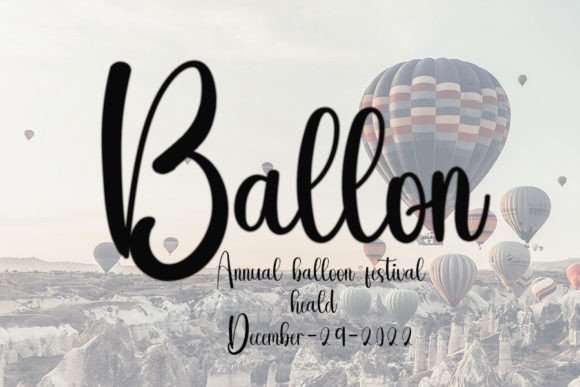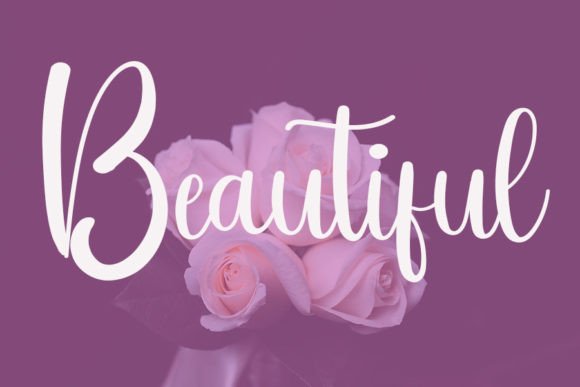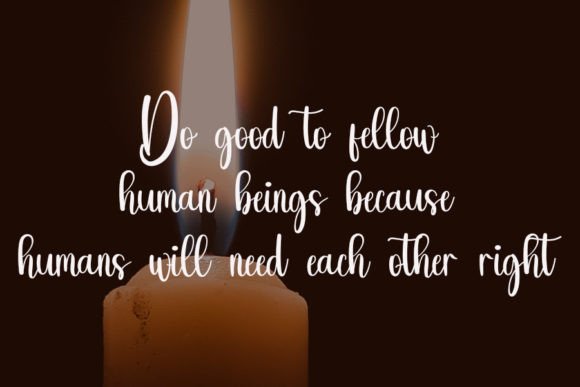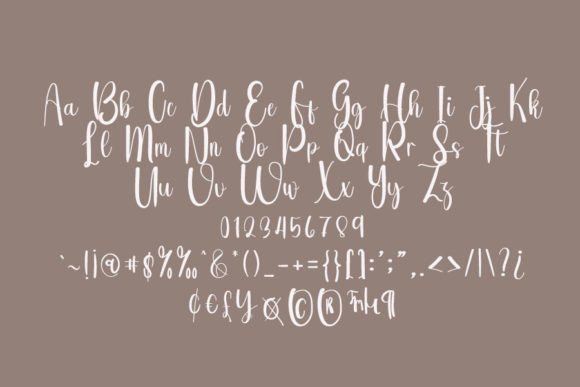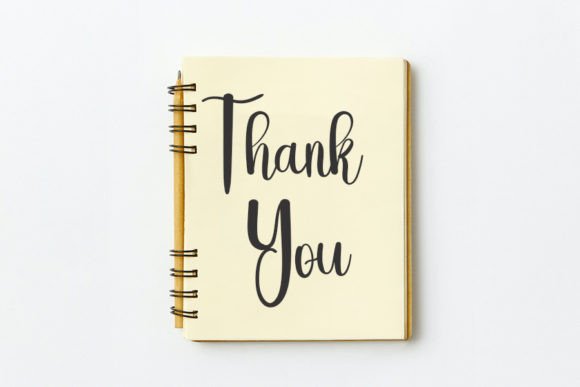
Introduction to Planners Font
As a designer, have you ever found yourself staring at a blank canvas, struggling to bring your creative vision to life? You’ve spent hours pouring over design resources, searching for the perfect font to elevate your project. That’s where the Planners Font comes in – a simple, cute, and elegant script font that’s about to become your new best friend.
With its versatility and high-quality design, the Planners Font is the perfect addition to any creative holiday design. Imagine adding a touch of sophistication to your digital invitation, or giving your social media graphics a unique and eye-catching flair. The possibilities are endless, and with a free download available, you can start incorporating this design resource into your projects today.
Key Features of Planners Font
- High-quality, clean, and modern design perfect for creative projects and planners.
- Features a transparent background, allowing for seamless integration with any background image or color.
- Designed to be highly legible and easy to read, making it ideal for use in planners, journals, and other creative projects.
- Available in multiple sizes, with a standard resolution of 1024 x 1024 pixels, ensuring crisp and clear typography.
- Perfect for designers, artists, and writers looking for a high-quality design resource to enhance their creative project.
Honest Review: Planners Font
I recently had the chance to work with Planners Font for a creative project and I must say it’s been a game-changer. As a designer, I’m always on the lookout for high-quality design resources that can elevate my work, and Planners Font definitely fits the bill.
One of the things that works well about Planners Font is its versatility. I used it for a variety of applications, from digital design to print materials, and it looked great every time. The font is highly customizable, allowing me to adjust the size, color, and style to fit my needs.
- Works well for digital and print design
- May not be suitable for very small text sizes due to its bold style
- Some users may find the font a bit too generic
Overall, I’m really impressed with Planners Font and would definitely recommend it to fellow designers. It’s a high-quality design resource that can add a professional touch to any creative project.
Tips for Getting the Most Out of Planners Font
To get the most out of the Planners Font, use it in conjunction with other design elements, such as graphics and images, to create a visually appealing design. Experiment with different font sizes and styles to add depth and interest to your project.
The Planners Font is ideal for use in creative projects, such as blog posts, social media graphics, and marketing materials. Its high-quality design and transparent background make it perfect for use in a variety of design applications.